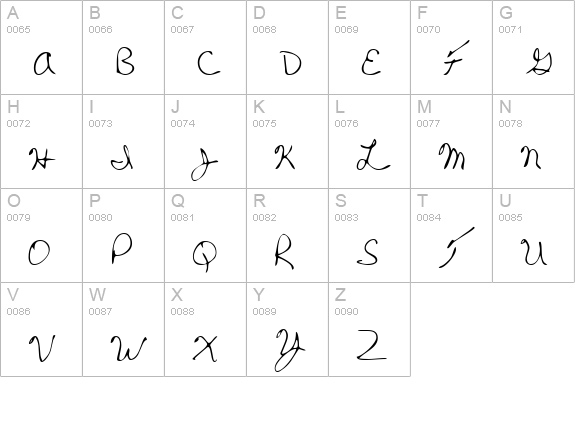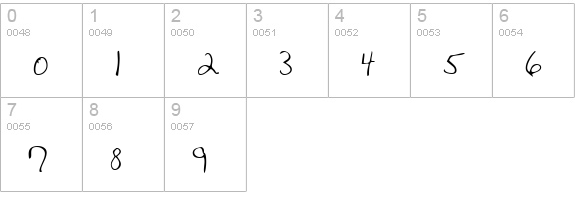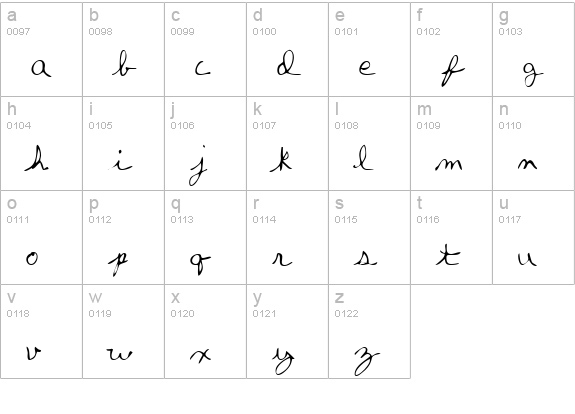
VanessasHand Regular is the standard, neutral variant in the VanessasHand typeface family \xE2\x80\x94 well suited to general body text, paragraphs, and standard typographic work.
VanessasHand Regular font is a stunning and elegant typeface that exudes sophistication and beauty. With its delicate strokes and graceful curves, this font adds a touch of elegance to any design project. Whether you are creating wedding invitations, branding materials, or simply adding a personal touch to your social media posts, VanessasHand Regular font is the perfect choice. One of the best things about VanessasHand Regular font is that it is freely available to download at FontsMarket.com. This means that you can enjoy the beauty and versatility of this font without having to spend a penny. Whether you are a professional designer or a beginner, this font provides endless possibilities for creativity and expression. The clean and legible letterforms of VanessasHand Regular font make it easy to read and understand, ensuring that your message is effectively conveyed to your audience. Its versatility allows it to be used in a wide range of projects, from elegant and formal designs to more playful and casual layouts. With VanessasHand Regular font, you can elevate your designs and create a unique and memorable visual experience. Its timeless beauty and classic charm will never go out of style, making it a valuable asset for any creative project. Download VanessasHand Regular font for free at FontsMarket.com and unlock the potential to create stunning and captivating designs. Experience the beauty and versatility of this font and let your imagination run wild. Whether you are a professional designer or a hobbyist, VanessasHand Regular font is sure to impress and inspire. Don't miss out on this incredible opportunity to enhance your designs with this exquisite typeface.